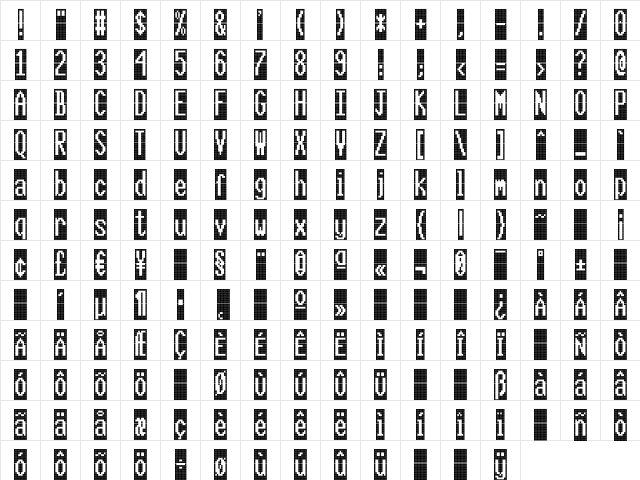
CallFourL-Negativ Regular
Design Context for CallFourL-Negativ
CallFourL-Negativ is a composed and adaptable typeface that performs quietly and consistently across a wide range of design contexts.